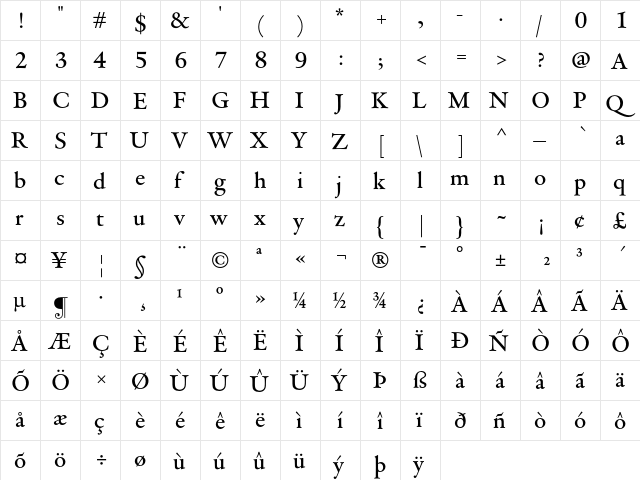
DTL VandenKeere D Medium Font Preview
DTL VandenKeere D Medium
Design Context for DTL VandenKeere Typeface
DTL VandenKeere is a composed and adaptable typeface that performs quietly and consistently across a wide range of design contexts.
Pro Tip: Use DTL VandenKeere in both headline and body roles to test its range before committing to a single application.